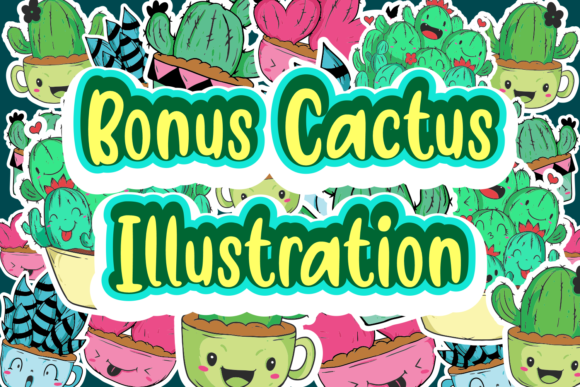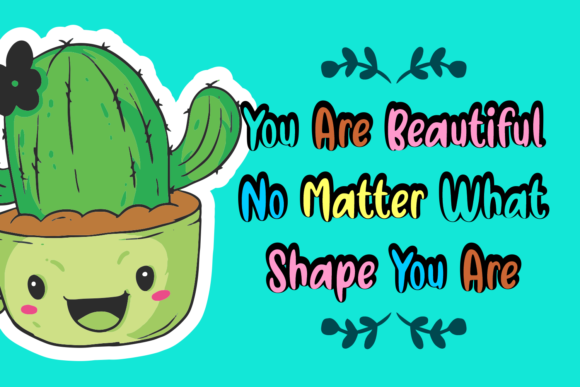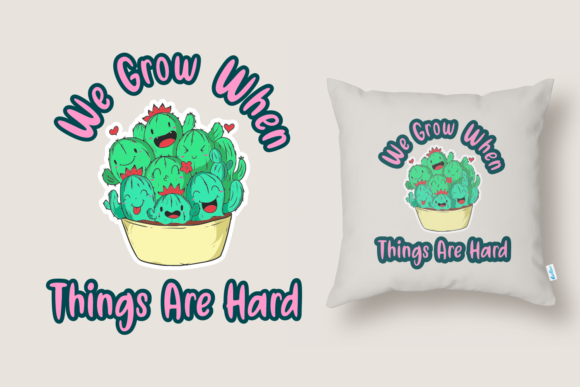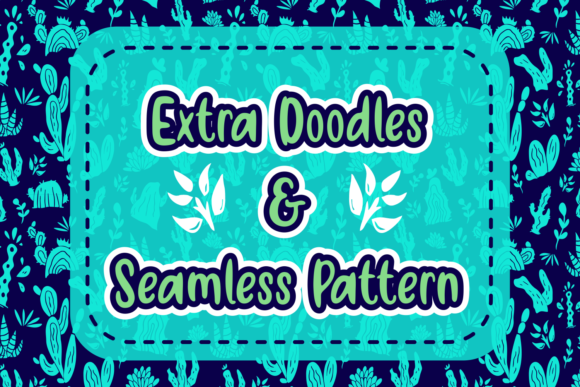
The Friendly Cactus Font: A Playful Decorative Delight
I’ll never forget the time I was working on a project for a children’s party invitation. I had the design concept all sorted out, but I was stuck on finding the perfect font. The invitation needed to be fun, playful, and eye-catching. That’s when I stumbled upon the Friendly Cactus font. It was love at first sight! 💕
The Friendly Cactus is a playful decorative font that has become a staple in my design toolkit. In this article, I’ll share my honest review, a step-by-step guide on how to use it, and some similar font alternatives.
My Honest Review
• ✨ Unique and quirky design that adds a touch of whimsy to any project
• ✅ Highly legible, even at smaller font sizes
• 🎉 Extensive character set, including glyphs and stylistic alternates
• 👍 Perfect for a variety of design projects, from invitations to social media graphics
While the Friendly Cactus font is amazing, there are a few things to keep in mind:
• 🤔 Some characters, like the lowercase “g” and “q”, can be a bit tricky to read at very small font sizes
• ⚠️ Limited availability of language support, so it’s best suited for English or similar languages
The Friendly Cactus font was designed with the intention of bringing a touch of playfulness and whimsy to design projects. The designer, inspired by the quirky charm of cacti, aimed to create a font that would add a dash of personality to any design. And, honestly, I think they succeeded! 😊
Q: Is the Friendly Cactus font suitable for body text?
A: While the Friendly Cactus font is legible, it’s best suited for headlines or short paragraphs. For longer body text, a more traditional font might be more readable.
Q: Does the Friendly Cactus font support multiple languages?
A: The Friendly Cactus font has limited language support, so it’s best suited for English or similar languages.